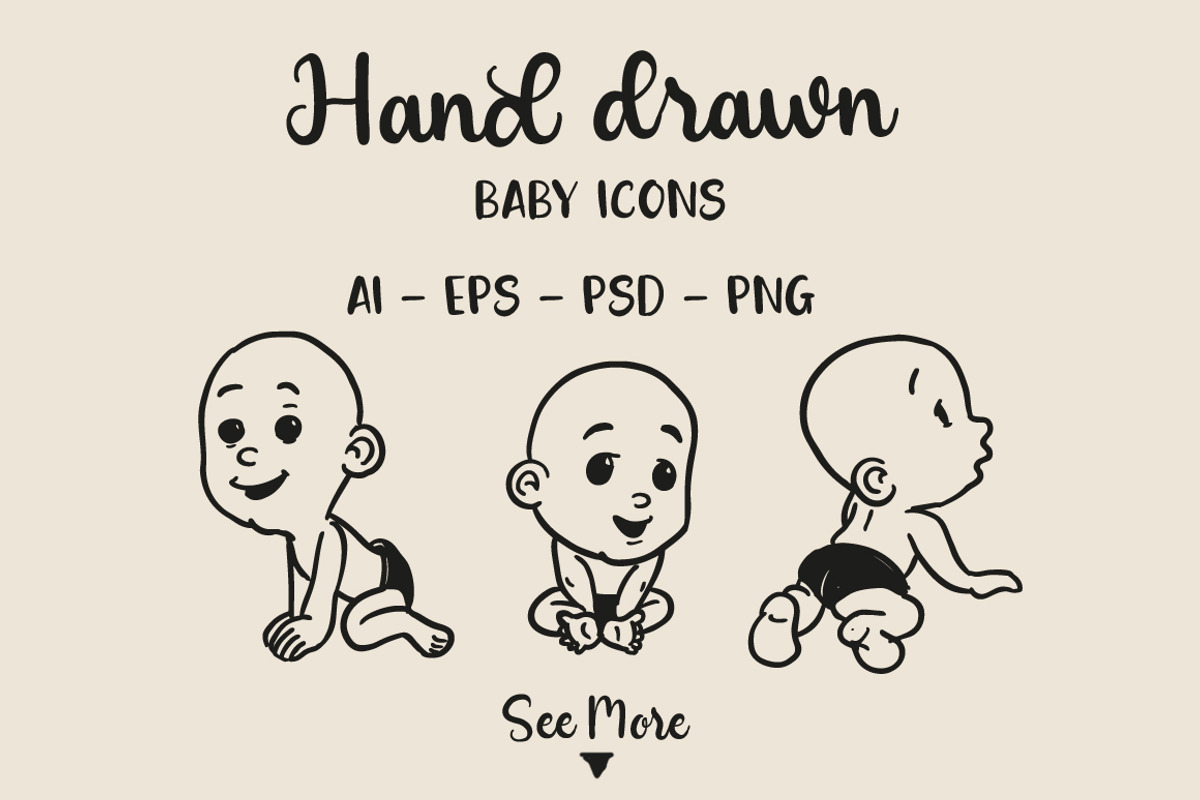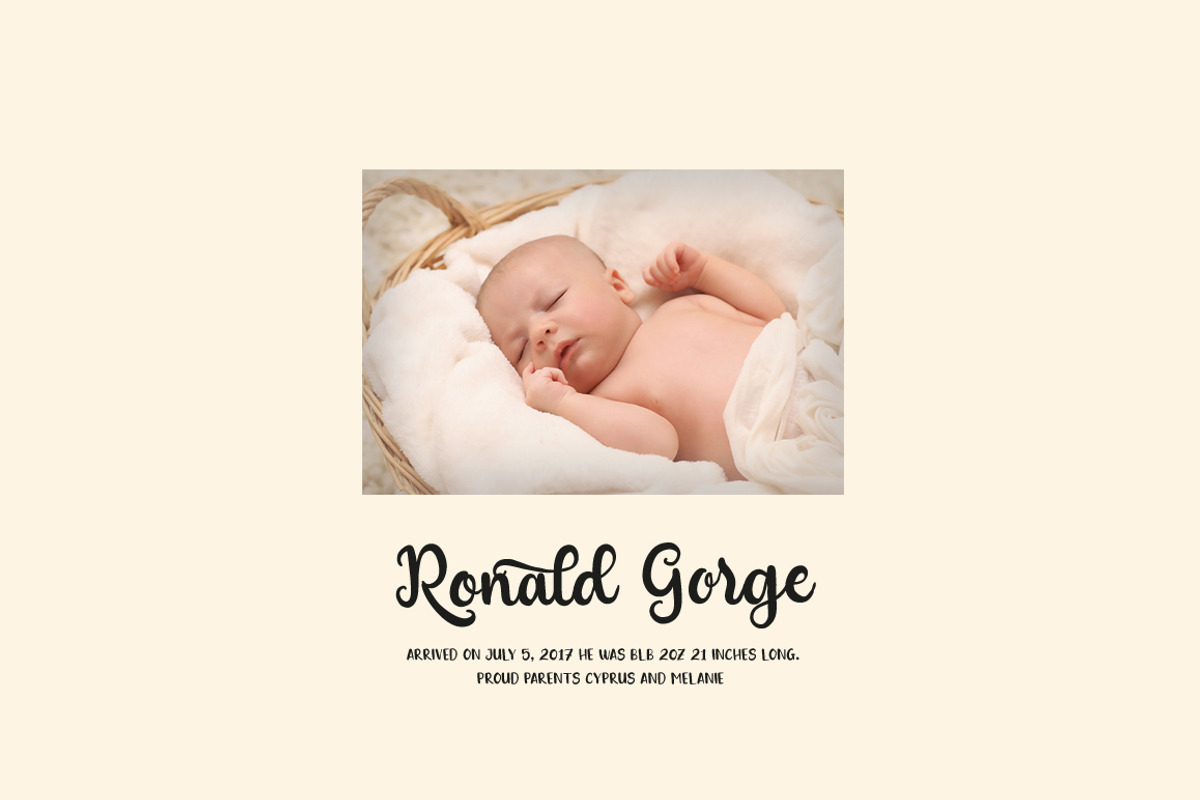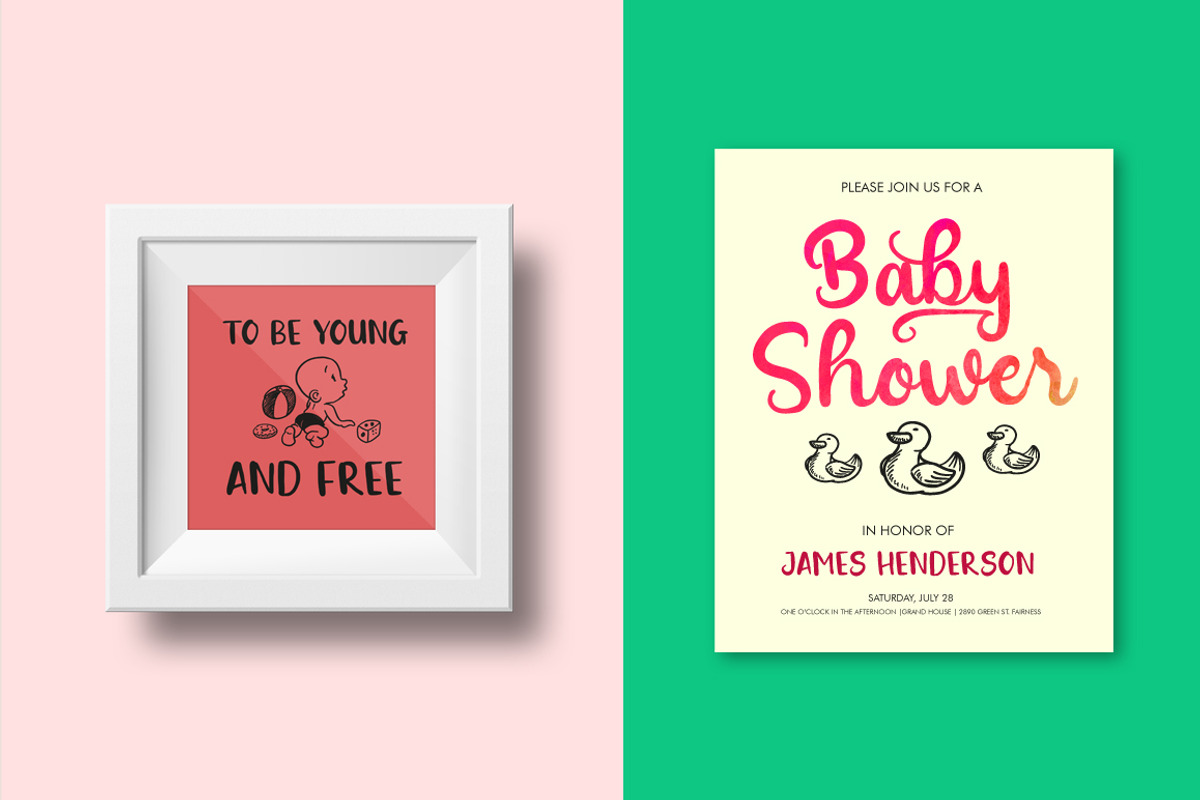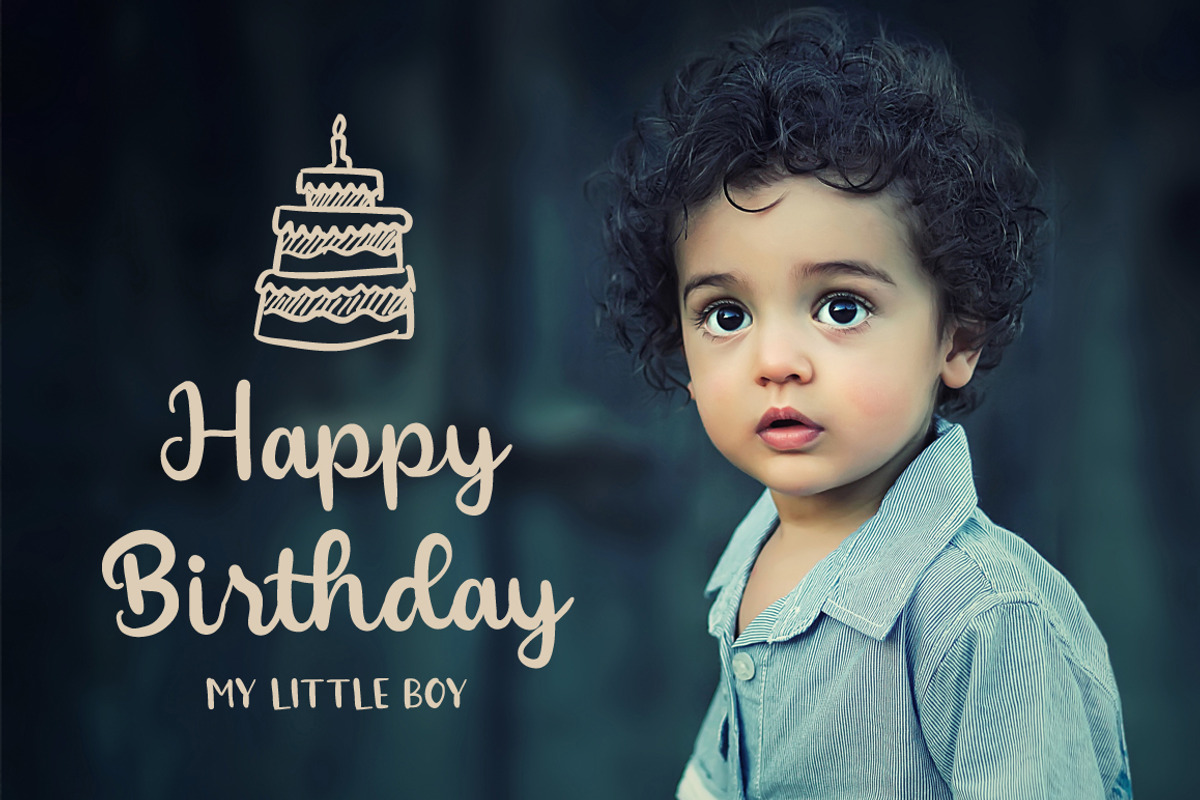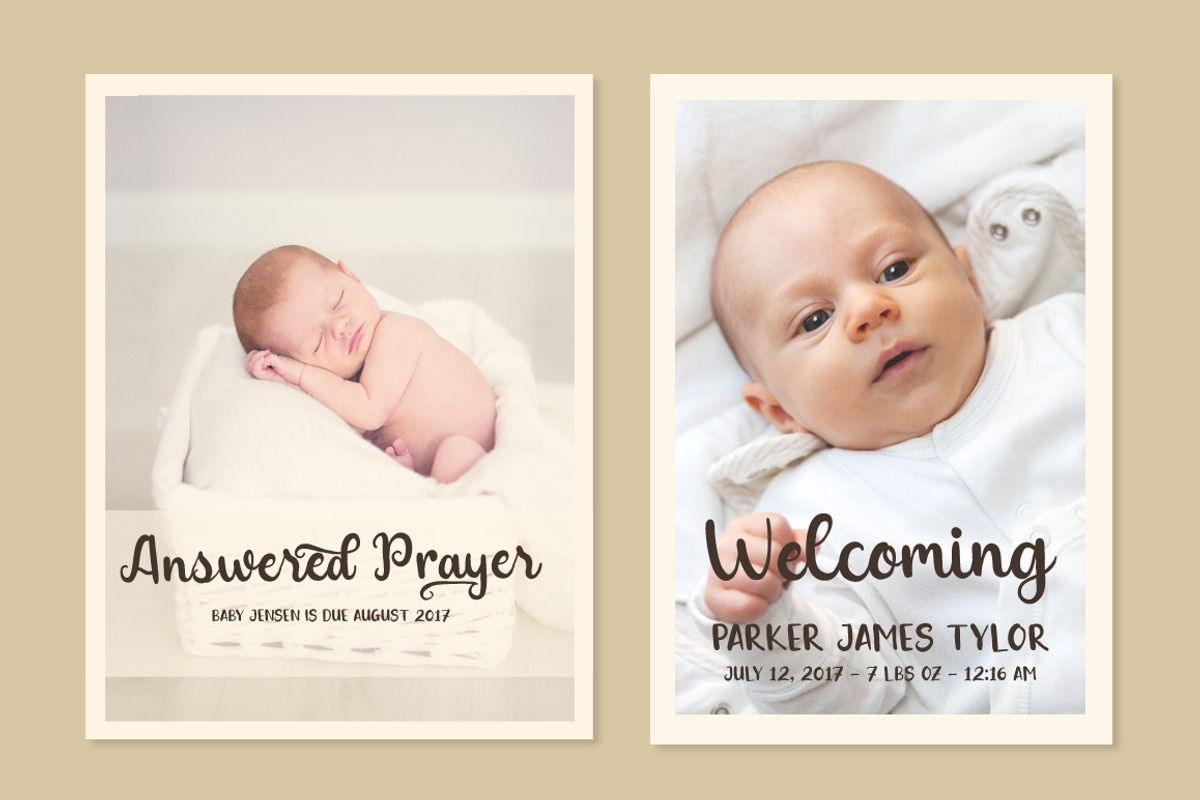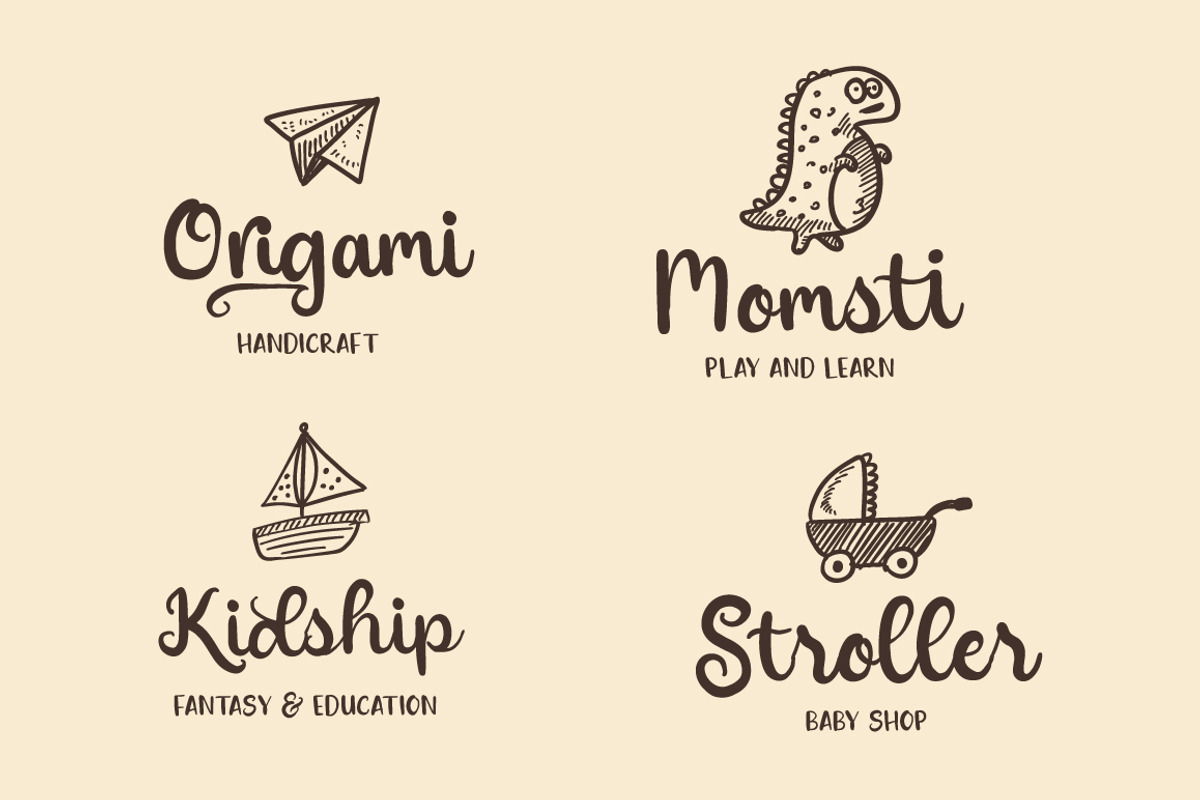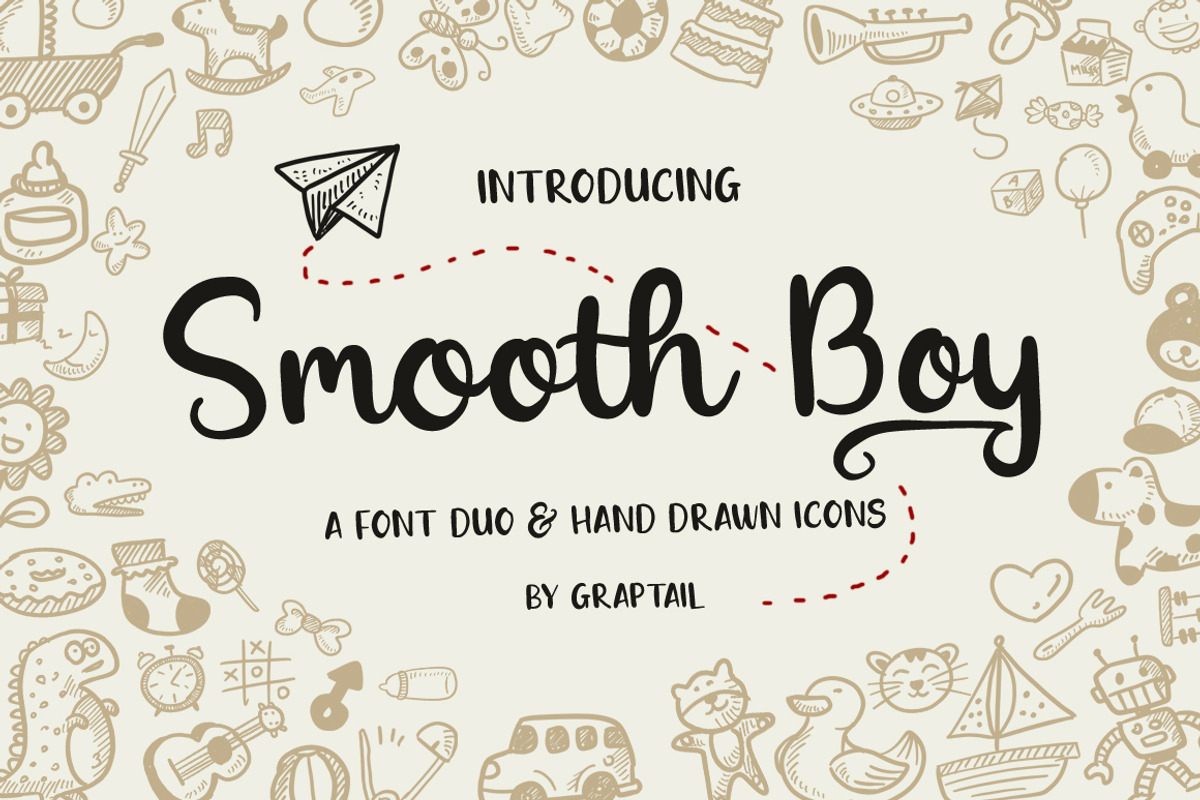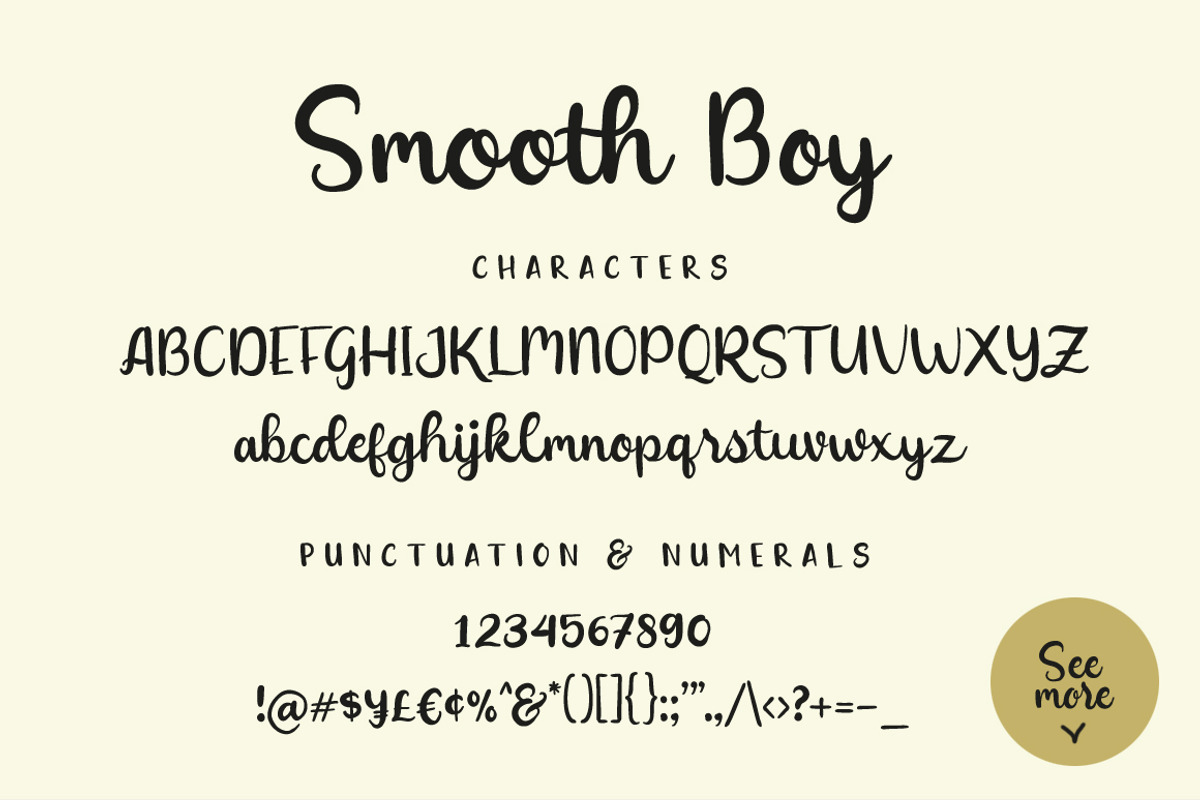
Smooth Boy - Fonts & Icons
When my wife was pregnant with our first child. I did not stop thinking about her birth. I am inspired to create something that reflects how funny it is :)
Say WOW to Smooth Boy - A funny little font duo with a very good amount and comes with illustrations and icons that can add your joy, easy to use, and you can combine to get results that inspire your work.
The Smooth Boy package also includes 76 icons and 3 baby characters that are easy to edit. You can create your own inspiration for a personal / commercial branding project. Use and combine to get the results you want.